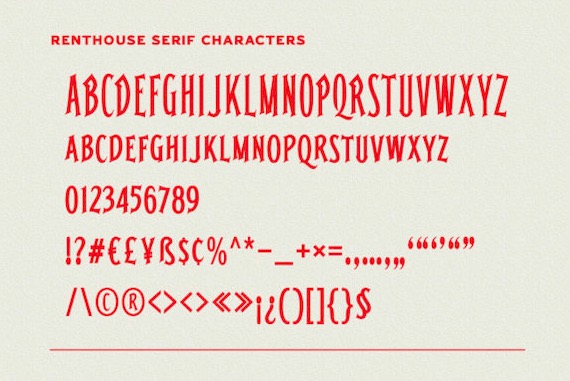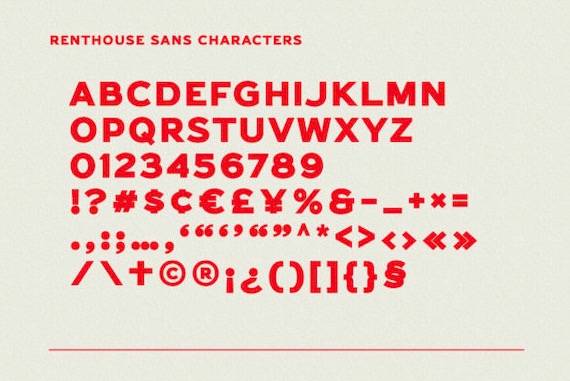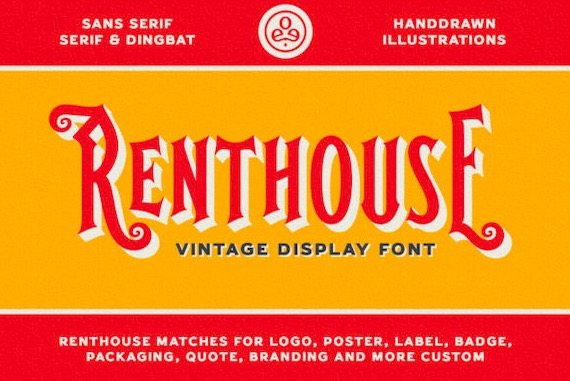
Renthouse is a rough, strong, cool, and textured trio font (dingbats, display, serif, and sans serif). It was created and shared by Edignwn Type. It’s PUA encoded which means you can access all of the glyphs and swashes with ease.
Renthouse Display Font